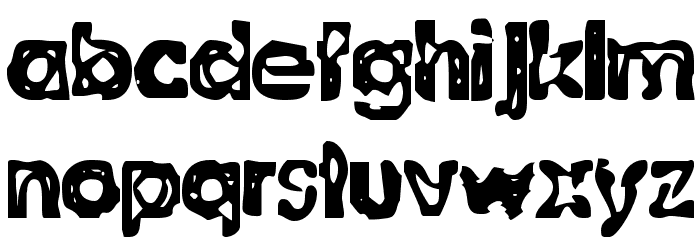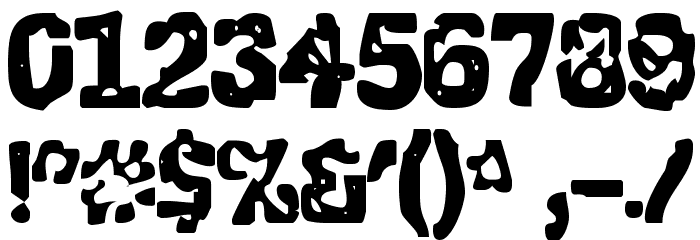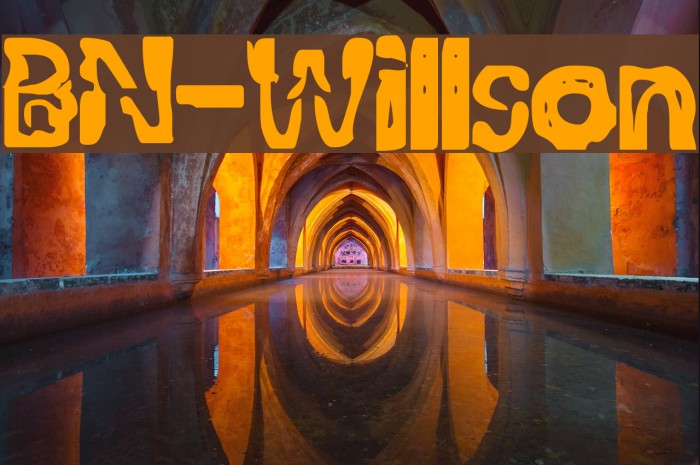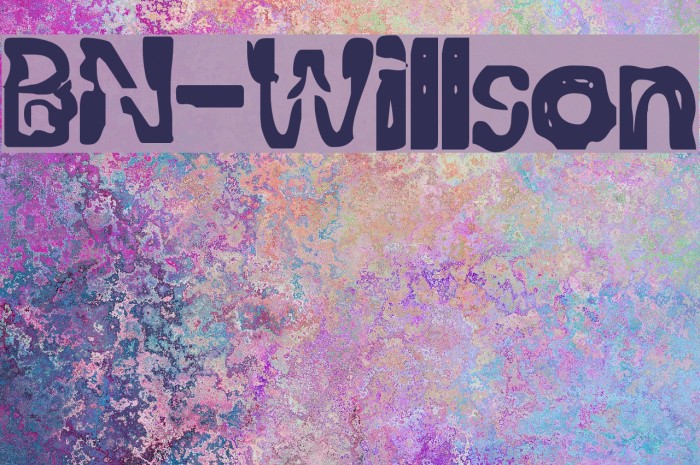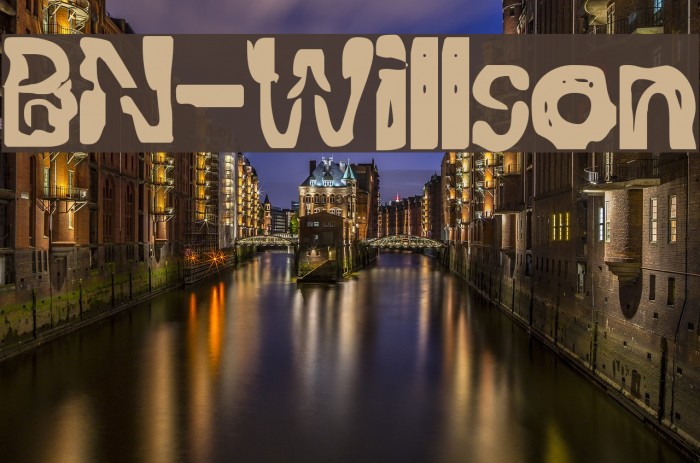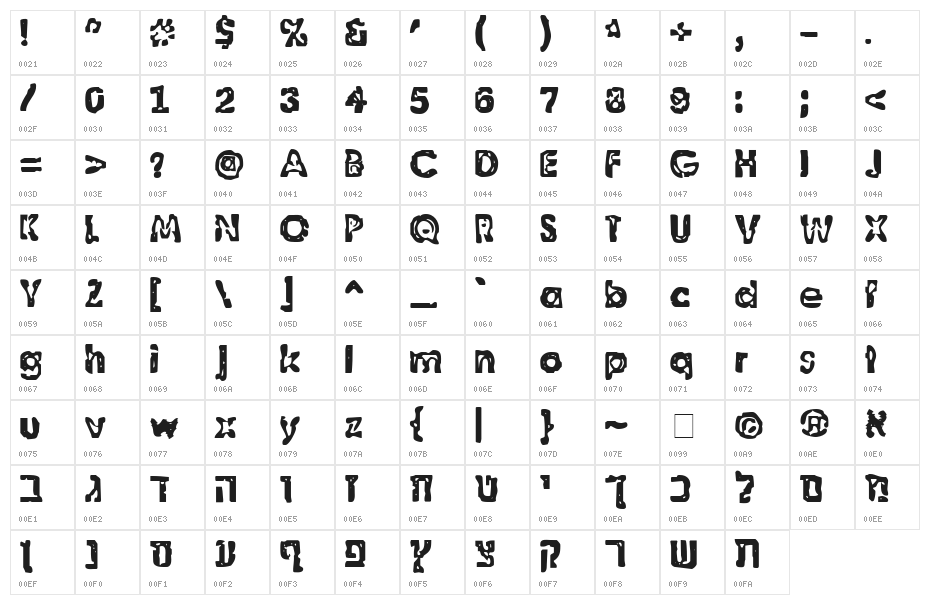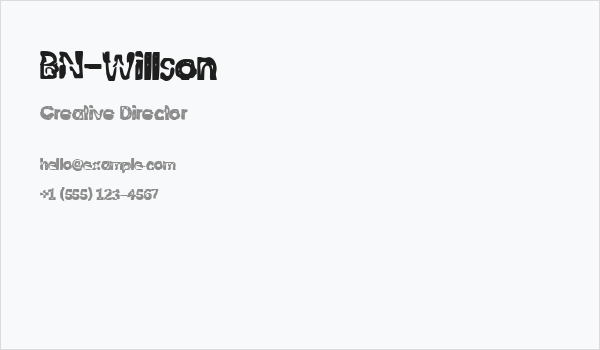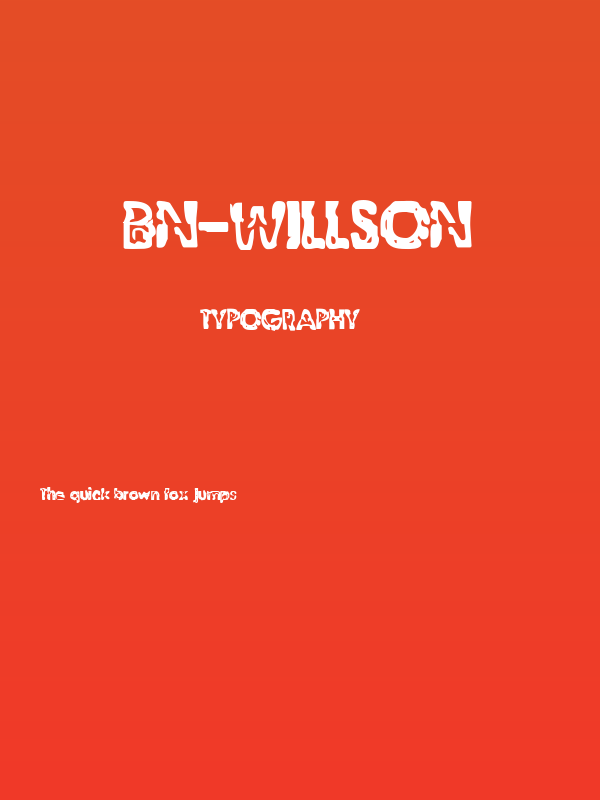
BN-Willson Font
This font features a bold and playful design with irregular, organic shapes that give it a unique and artistic appearance. The characters are heavily stylized, with thick strokes and uneven edges, creating a sense of movement and dynamism. The uppercase and lowercase letters maintain a consistent style, while the numbers and special characters follow the same whimsical theme. This font's distinctive look makes it stand out, offering a creative and unconventional option for various design projects.
A bold, playful font with irregular, organic shapes and thick strokes.
- Proposed Projects: Ideal for creative projects such as posters, album covers, children's books, and branding materials that require a unique and artistic touch.
- Overall Style: Artistic, Playful
- Use Case: Headlines, Posters, Branding